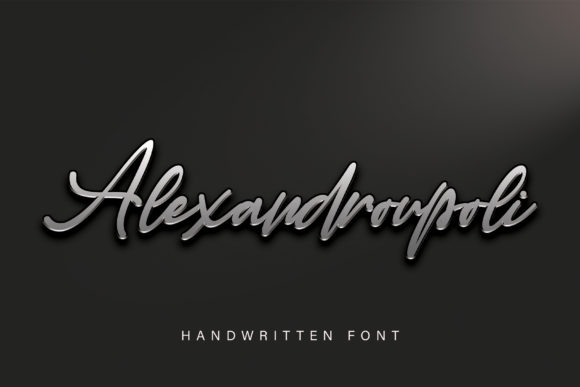
Discover the Unique Charm of Alexandroupoli Font
As a designer, I’ve had my fair share of moments where finding the perfect font felt like searching for a needle in a haystack. I recall working on a project where I needed a script font that was both modern and elegant. The client wanted something that would make their brand stand out, but still convey a sense of sophistication. After hours of scouring font libraries, I stumbled upon Alexandroupoli – a beautifully designed script with a modern style that instantly caught my eye.
A Personal Review of Alexandroupoli
- ✨ Elegant and modern script style that’s perfect for branding and advertising projects
- 💫 Unique charm that sets it apart from more traditional script fonts
- 🎨 Extensive range of OpenType features, glyphs, and stylistic alternates
While Alexandroupoli is an exceptional font, there are a few minor quirks to be aware of:
- ⚠️ Some users may find the font’s modern style too avant-garde for certain projects
- 🤔 Limited support for non-English languages
The Designer Inspiration Behind Alexandroupoli
While the true story behind Alexandroupoli’s creation remains a mystery, it’s easy to imagine that the designer was inspired by the modern and elegant styles of the Greek city of Alexandroupoli. Perhaps the designer was drawn to the city’s rich history and cultural heritage, and sought to capture its essence in a unique and beautiful font.
| What type of projects is Alexandroupoli best suited for? | Alexandroupoli is perfect for branding, advertising, and marketing projects that require a modern and elegant script font. |
| Is Alexandroupoli suitable for body text? | While Alexandroupoli is highly legible, it’s best used for headlines and titles rather than body text. |
| Does Alexandroupoli support non-English languages? | Alexandroupoli has limited support for non-English languages, so it’s best to check the font’s language support before using it for a project. |